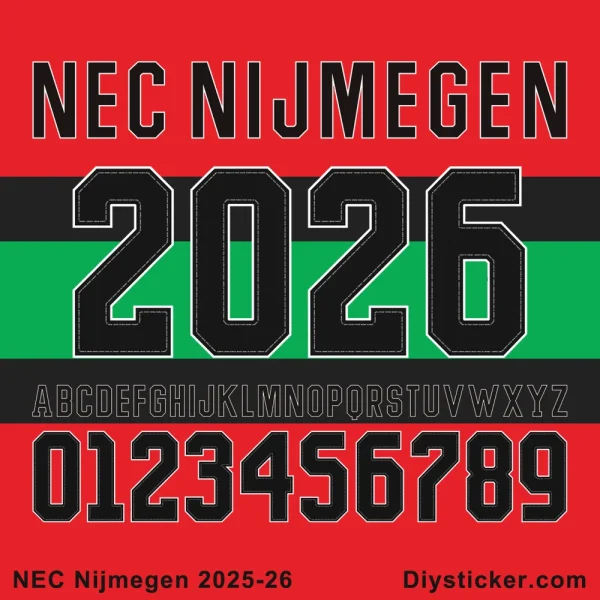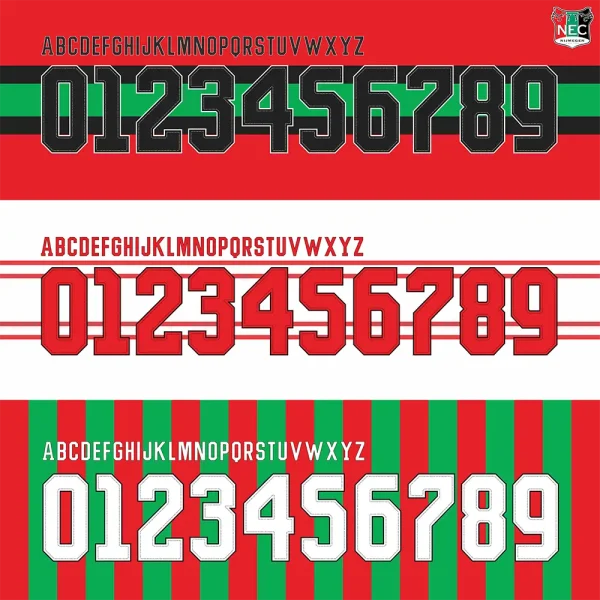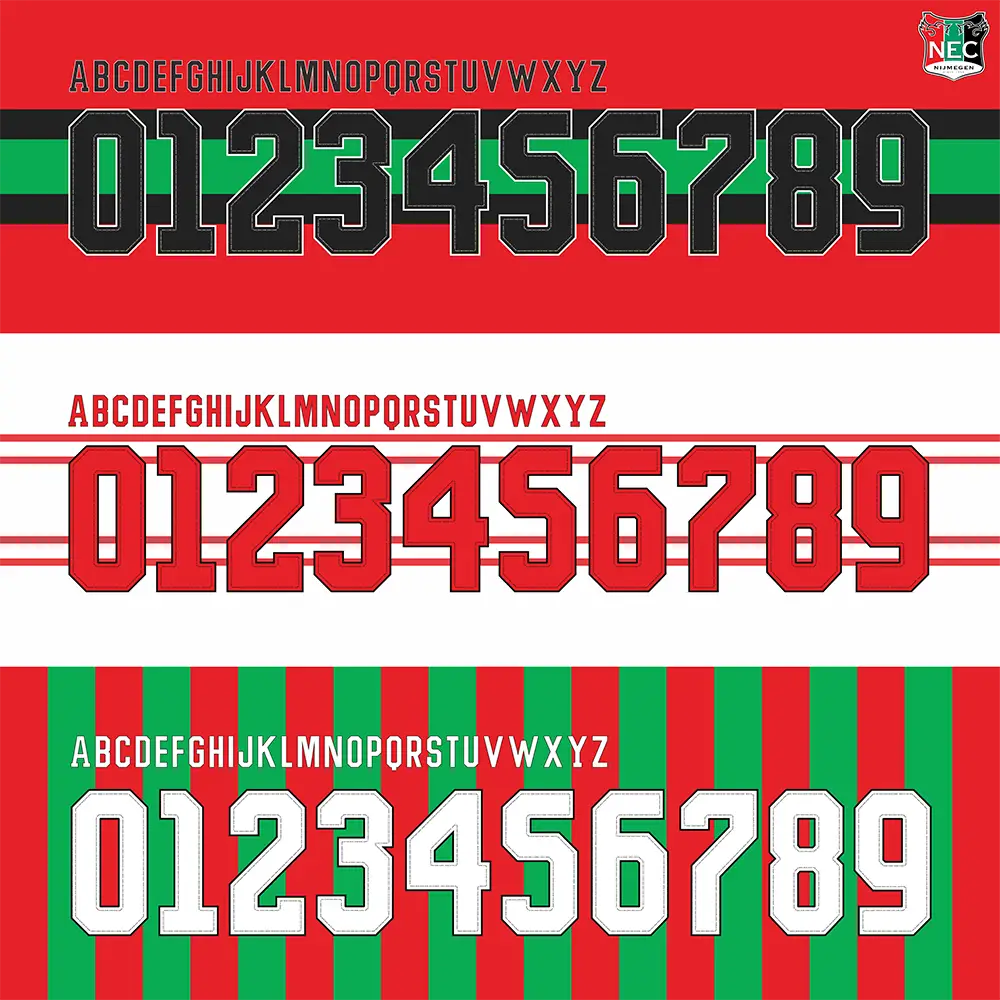
NEC Nijmegen 2025-26 Font Downloads
Design with the spirit of the Dutch Eredivisie using the official NEC Nijmegen 2025-26 Font. This professionally crafted typeface replicates the club’s distinctive lettering, allowing you to create authentic designs for jerseys, fan merchandise, and digital content.